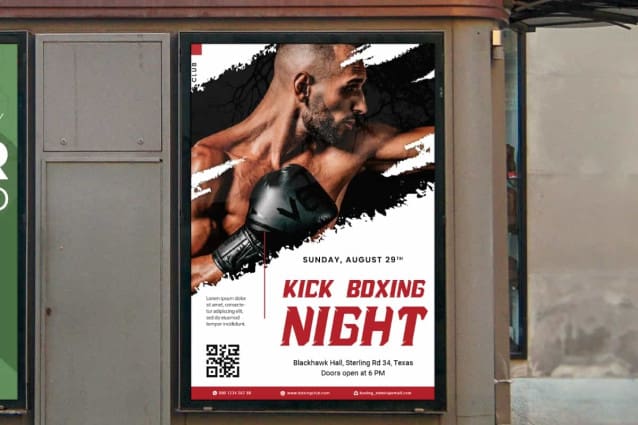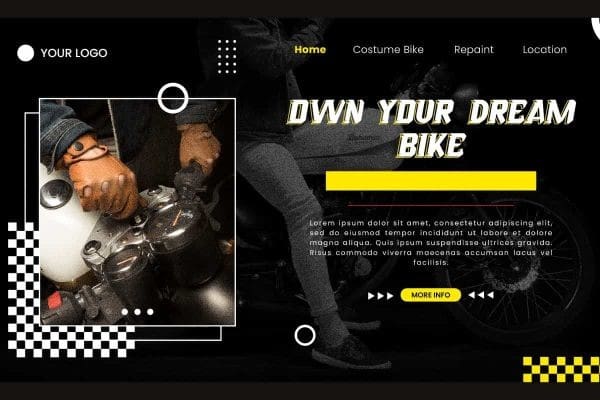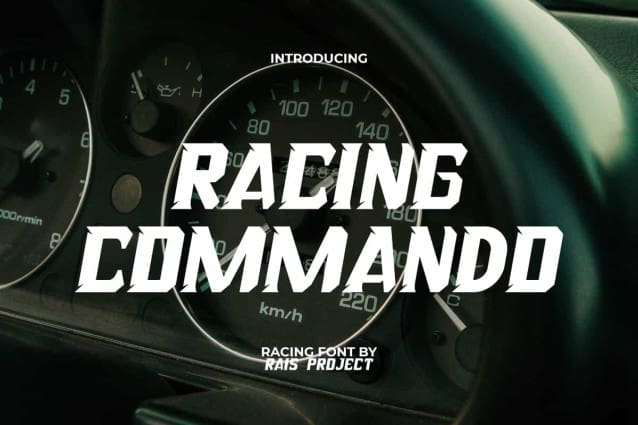
Racing Commando Font
Racing Commando Font is a stylish modern racing display font with attractive shape and cool appearance. This font has bold characters and lines that make it look brave and cool. It will be good for any designs, such as advertisement, brand image, custom design, cover, invitation, label, menu, poster, product packaging, quotes, stationery, website page, and more!
Racing Commando Font includes a full set of ALL CAPS for Uppercase and Lowercase Letters, Numerals, and large range of Punctuation. This decorative font with a racing vibe will be suitable for various industries, such as accessories, café, event or festival, fashion, movie, printing, publishing, sports, etc.